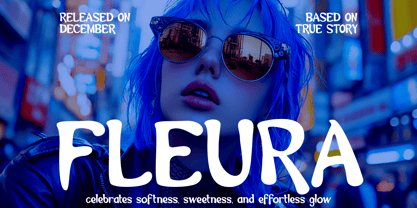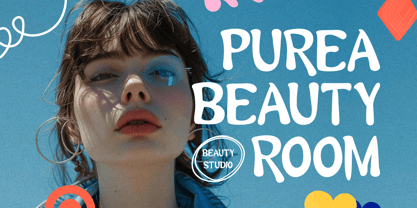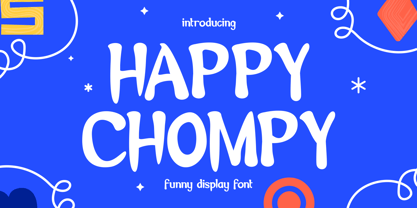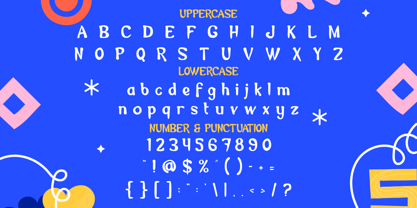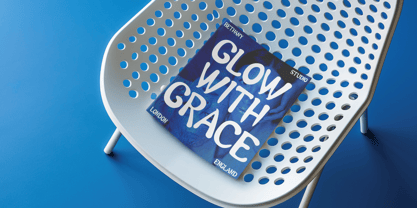
Happy Chompy
by Putracetol
The Happy Chompy Font Family was designed by Putra Novembria Candra Kusuma and published by Putracetol. Happy Chompy contains 1 styles. More about this family
Happy Chompy Funny Display Font is a cheerful display typeface designed with rounded, chunky letterforms and soft proportions. Each character features thick strokes with smooth curves, giving the font a friendly and approachable appearance. The letter height feels balanced rather than overly tall, while the generous width creates a bold visual presence. Edges are slightly irregular to add personality, yet the structure remains clear and readable. The font avoids sharp angles, replacing them with playful curves that feel hand-crafted. Stroke contrast is minimal, which helps maintain consistency and legibility across different sizes. Overall, the shape construction feels sturdy, warm, and expressive without appearing messy. In terms of style, Happy Chompy Funny Display Font sits firmly in the playful and fun category, with a modern touch that keeps it fresh. It carries a lighthearted mood that works especially well for kid-focused designs, creative branding, and casual communication. This font is ideal for logos that need a friendly identity, branding projects that want to feel welcoming, and headlines that must grab attention instantly. It also performs well for posters, packaging, stickers, greeting cards, book covers, magazines, invitations, crafting projects, movie titles, and promotional materials. The clear forms make it suitable for both print and digital use, ensuring consistent impact across media. Designers can rely on this font to communicate joy, creativity, and warmth while maintaining professional readability. Happy Chompy Funny Display Font supports a wide range of creative concepts, from playful businesses to imaginative personal projects. When personality matters more than formality, Happy Chompy Funny Display Font delivers charm without sacrificing clarity.